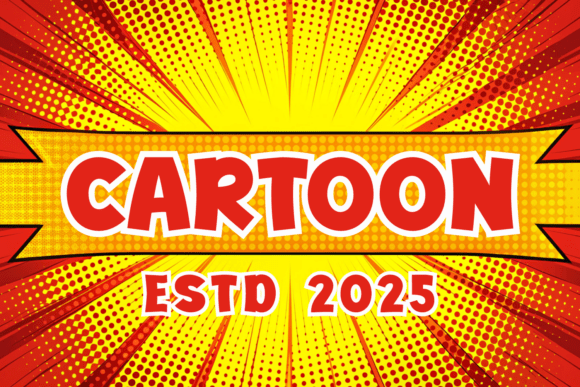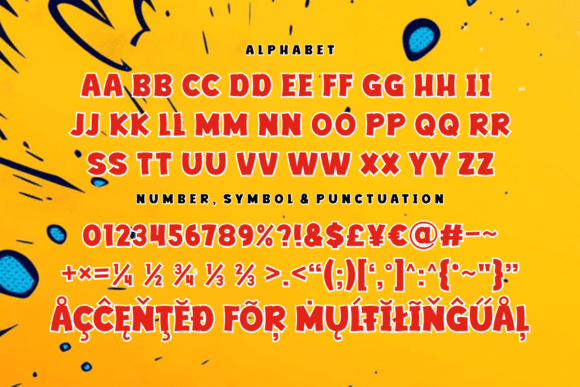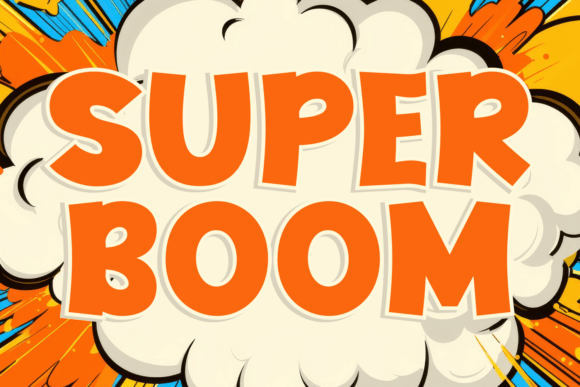
Unleash Whimsy and Charisma with Comic Thick Bold Fonts
Are you looking for a font that embodies the spirit of delightful whimsy and energetic charisma? Look no further than Comic Thick Bold Fonts! This playful, hand-drawn typeface is designed to bring a sense of friendliness and warmth to your designs, making it perfect for creative projects that require a touch of fun and levity.
The Perfect Blend of Fun and Functionality
Comic Thick Bold Fonts boast a cartoonish lettering style that strikes an ideal balance between playfulness and functionality. The lively animation and dynamism of this font make it an excellent choice for comic book pages, kids’ projects, and any design that requires a burst of energy and enthusiasm. The bold and expressive nature of this font ensures that your words will be eye-catching, cheerful, and lighthearted, making it perfect for headlines and titles.
A Font that’s Both Fun and Professional
One of the standout features of Comic Thick Bold Fonts is its ability to convey a sense of professionalism while still being playful and fun. The font is clear and readable, making it suitable for a wide range of design applications. Whether you’re working on a cartoon project or a creative design, this typeface will add a touch of animated flair to your text while remaining comfortably legible.
Key Features of Comic Thick Bold Fonts
- Playful and hand-drawn design: Adds a touch of whimsy and friendliness to your designs
- Cartoonish lettering style: Embodies the spirit of fun and levity
- Bold and expressive: Perfect for headlines and titles that require a burst of energy
- Clear and readable: Suitable for a wide range of design applications
- Versatile: Ideal for comic book pages, kids’ projects, and creative designs
Use Cases for Comic Thick Bold Fonts
So, where can you use Comic Thick Bold Fonts? The possibilities are endless! Here are a few ideas to get you started:
- Comic book pages: Add a touch of energy and enthusiasm to your comic book pages with this playful font
- Kids’ projects: Perfect for kids’ books, educational materials, and activity sheets
- Headlines and titles: Use Comic Thick Bold Fonts to create eye-catching headlines and titles that grab attention
- Creative designs: Add a touch of whimsy and fun to your designs with this versatile font
Tips for Using Comic Thick Bold Fonts
Here are a few tips to keep in mind when using Comic Thick Bold Fonts:
- Use it sparingly: While Comic Thick Bold Fonts are playful and fun, they can be overwhelming if overused. Use it sparingly to add emphasis and create visual interest
- Pair it with other fonts: Experiment with pairing Comic Thick Bold Fonts with other fonts to create a unique and visually appealing design
- Consider your audience: Keep in mind that Comic Thick Bold Fonts are playful and fun, making them perfect for kids’ projects and creative designs. However, they may not be suitable for more formal or professional applications
In conclusion, Comic Thick Bold Fonts are a great choice for designers and crafters looking to add a touch of whimsy and energetic charisma to their designs. With its playful, hand-drawn design and cartoonish lettering style, this font is perfect for creative projects that require a burst of fun and levity. Whether you’re working on a comic book page, kids’ project, or creative design, Comic Thick Bold Fonts are sure to bring a smile to your audience’s face.